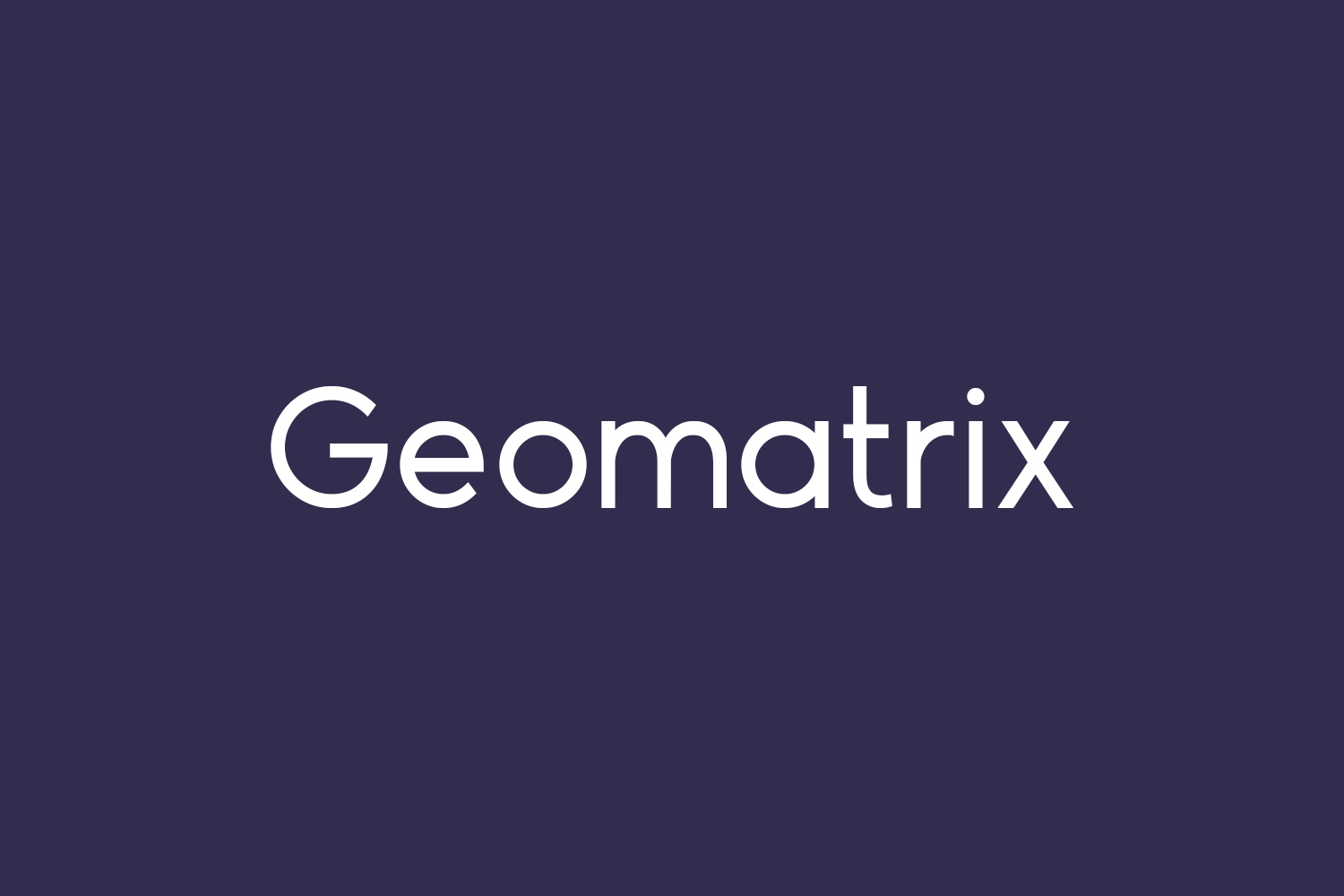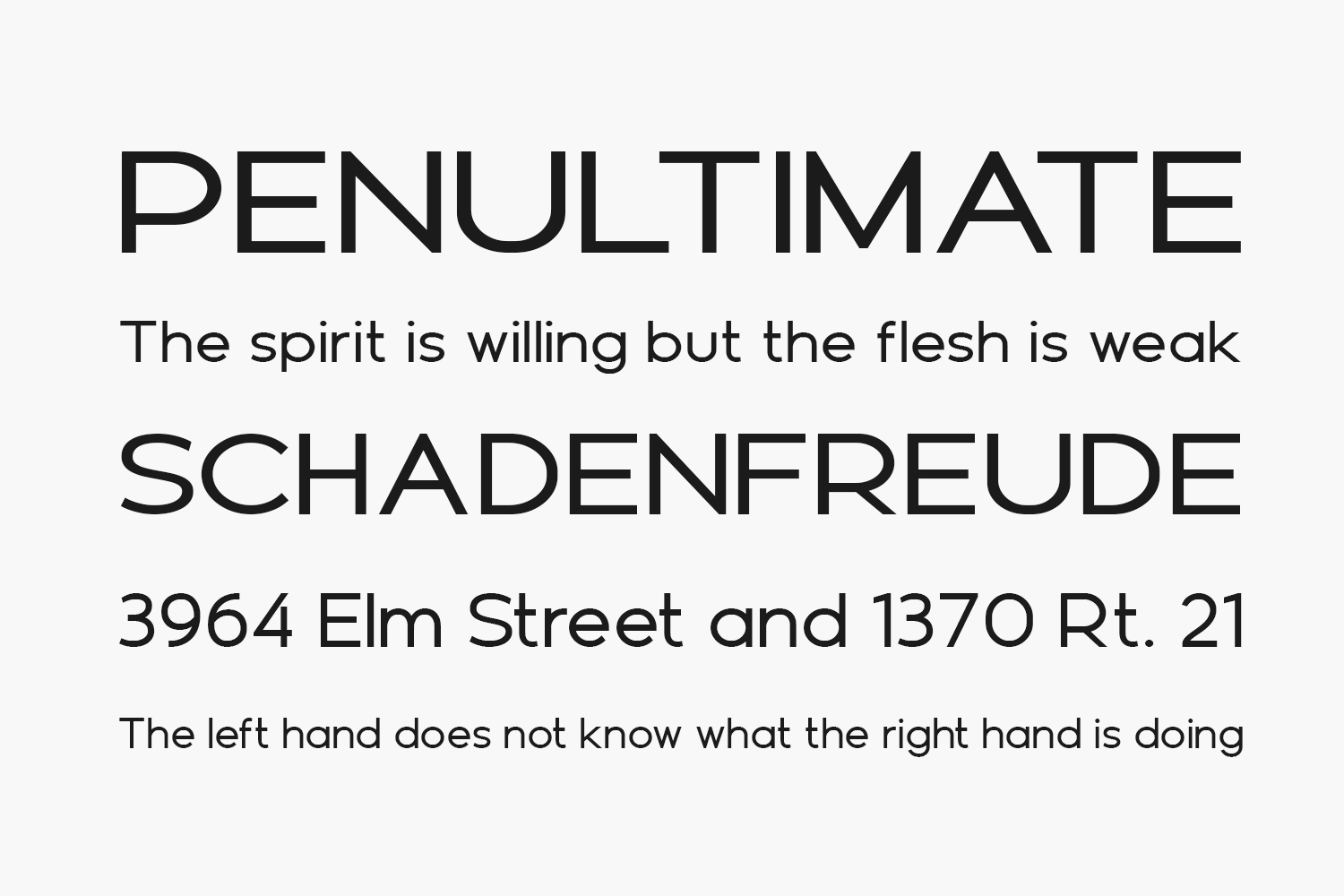
Unveiling Geomatrix Free Font Family, the epitome of geometric elegance in a sans serif font family. This font embodies the principles of modernism, showcasing the perfect harmony of sleek curves. With its open finishes, Geomatrix exudes a friendly and contemporary vibe, making it an ideal choice for any design project seeking an elegant touch. Geomatrix Free Font Family is free for personal use only. Please purchase the full version for commercial use.